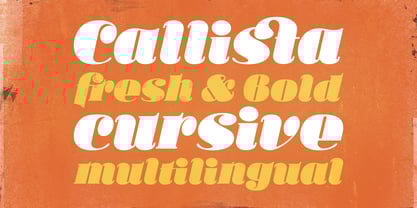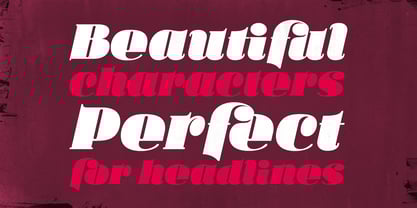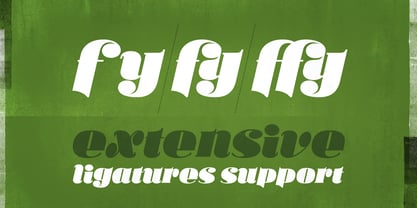
Ka Callista
by Karandash
Ka Callista Font Family was designed by Vassil Kateliev and published by Karandash. Ka Callista contains 1 styles.
Callista (from the Greek for "most beautiful") is a fat cursive typeface, inspired by the works of Francois Boltana in the early 1970s and those of Milka Peykova in late 1970s. With its Full Latin and Cyrillic support, Callista is a perfect choice for short headlines and logotype design.
Designers: Vassil Kateliev
Publisher: Karandash
Foundry: Karandash
Design Owner: Karandash